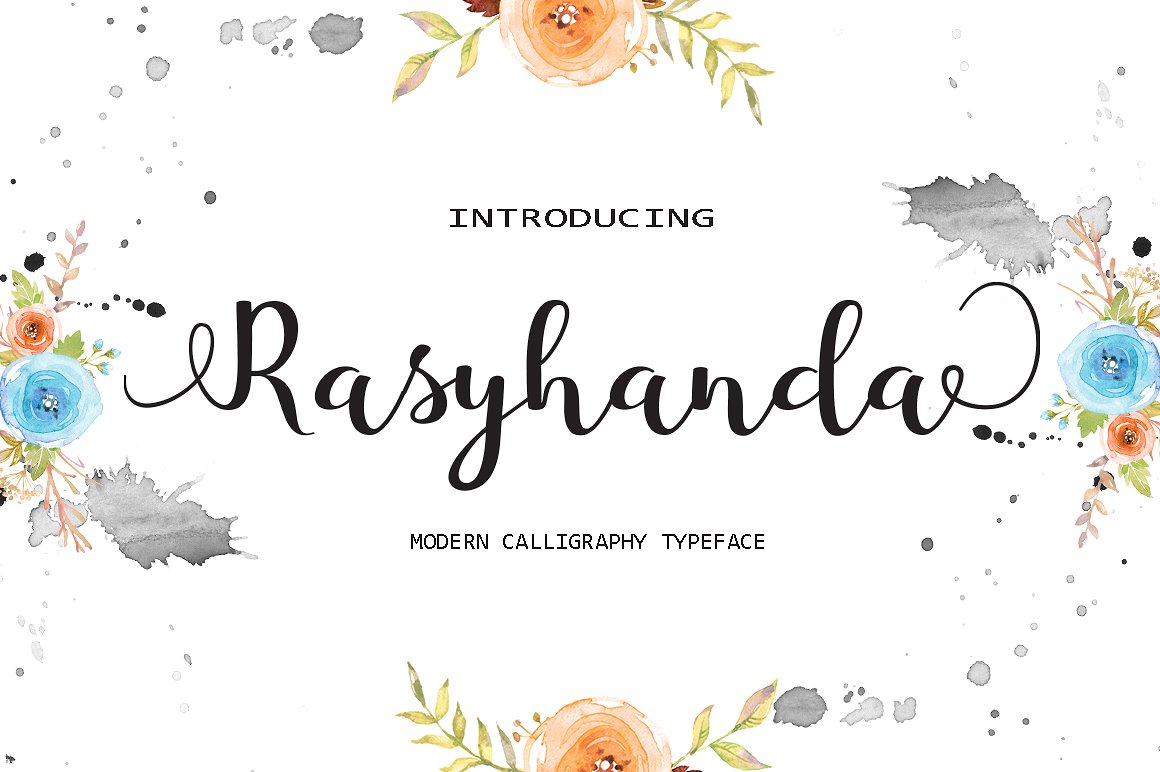
Rasyhanda Script Font
Rasyhanda Modern Calligraphy. This font was designed by handwriting, and it has a modern and unique forms of calligraphy, the writing style is very natural. Rasyhanda has a very unique style of calligraphy, it is very suitable for use in the work of modern design.